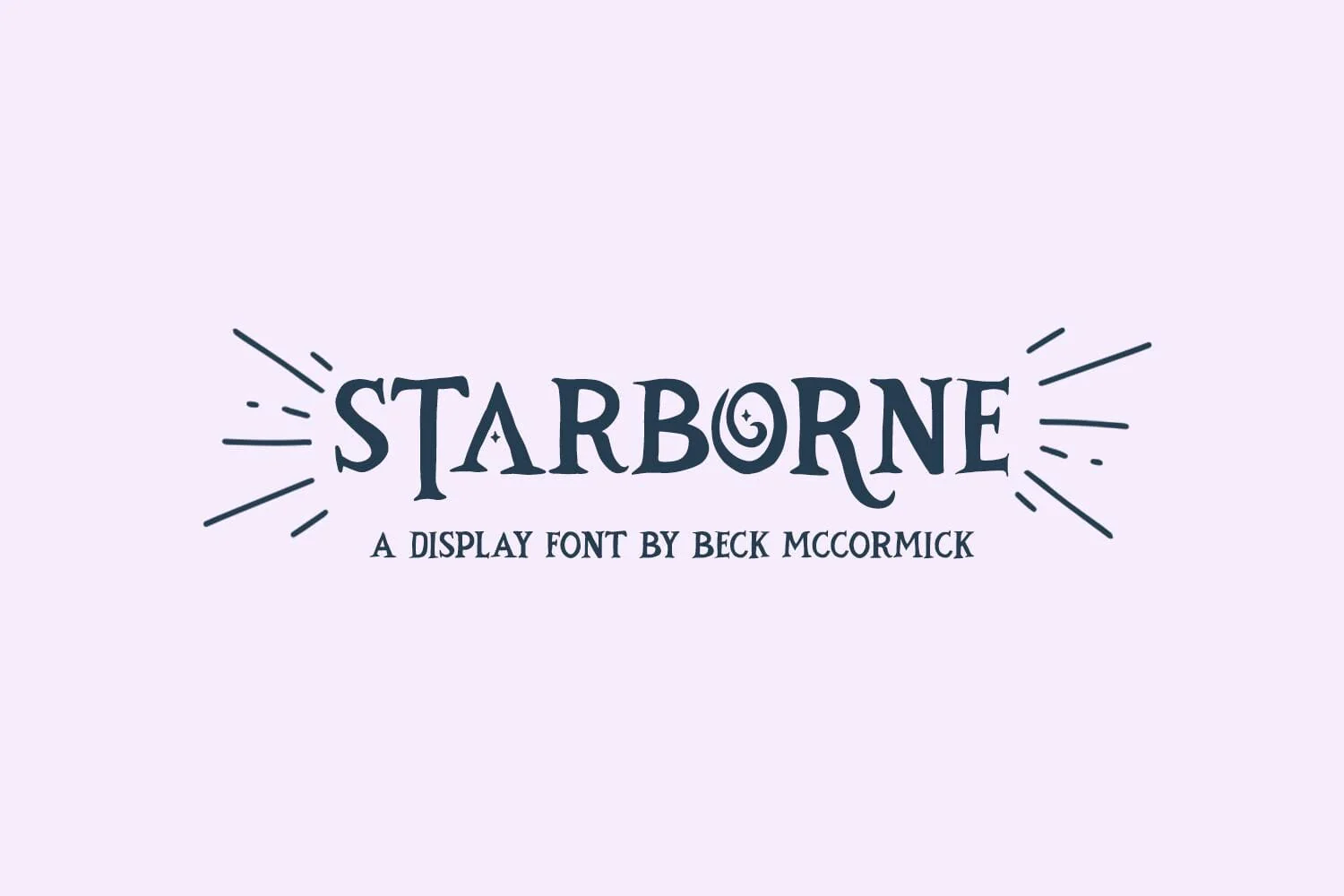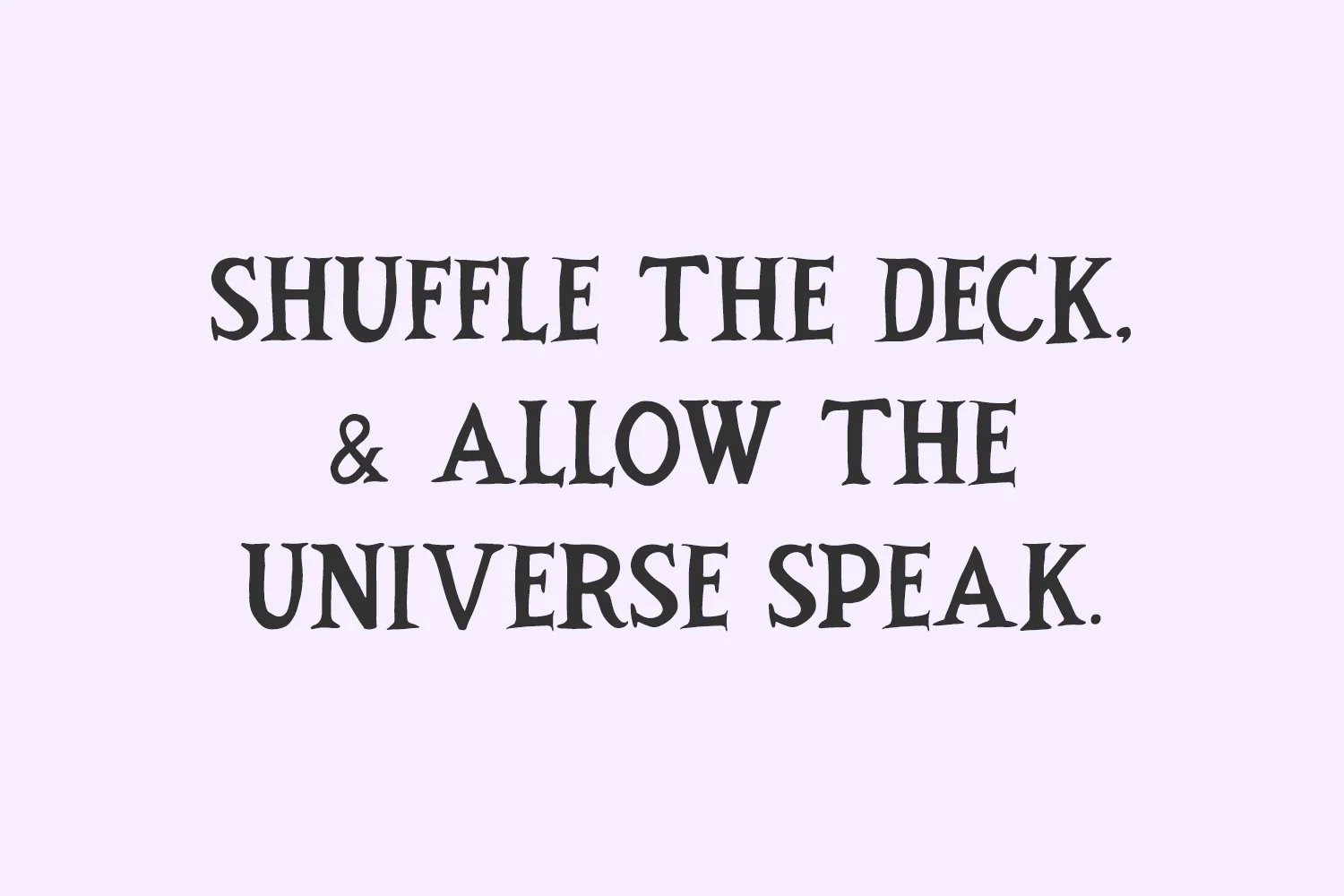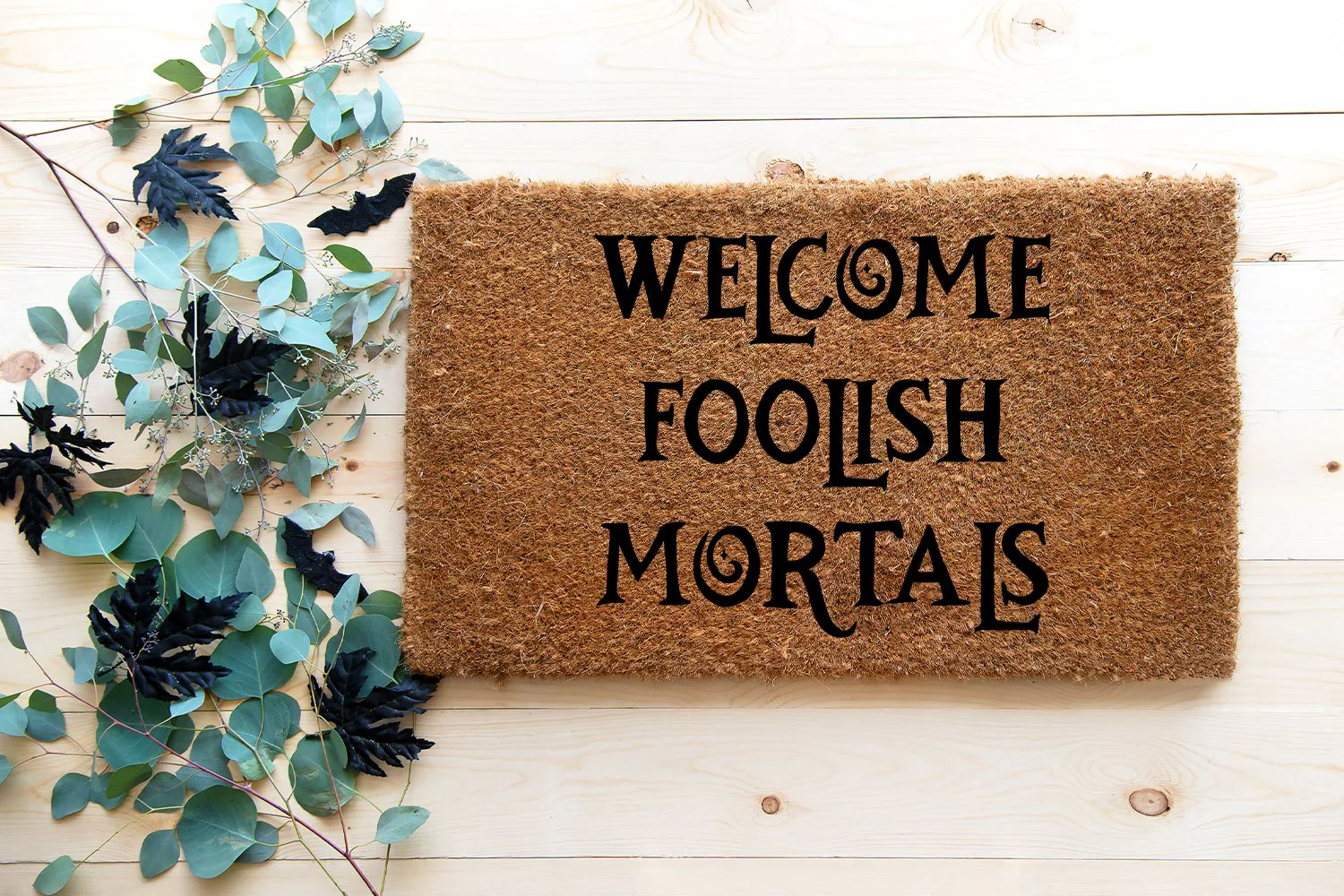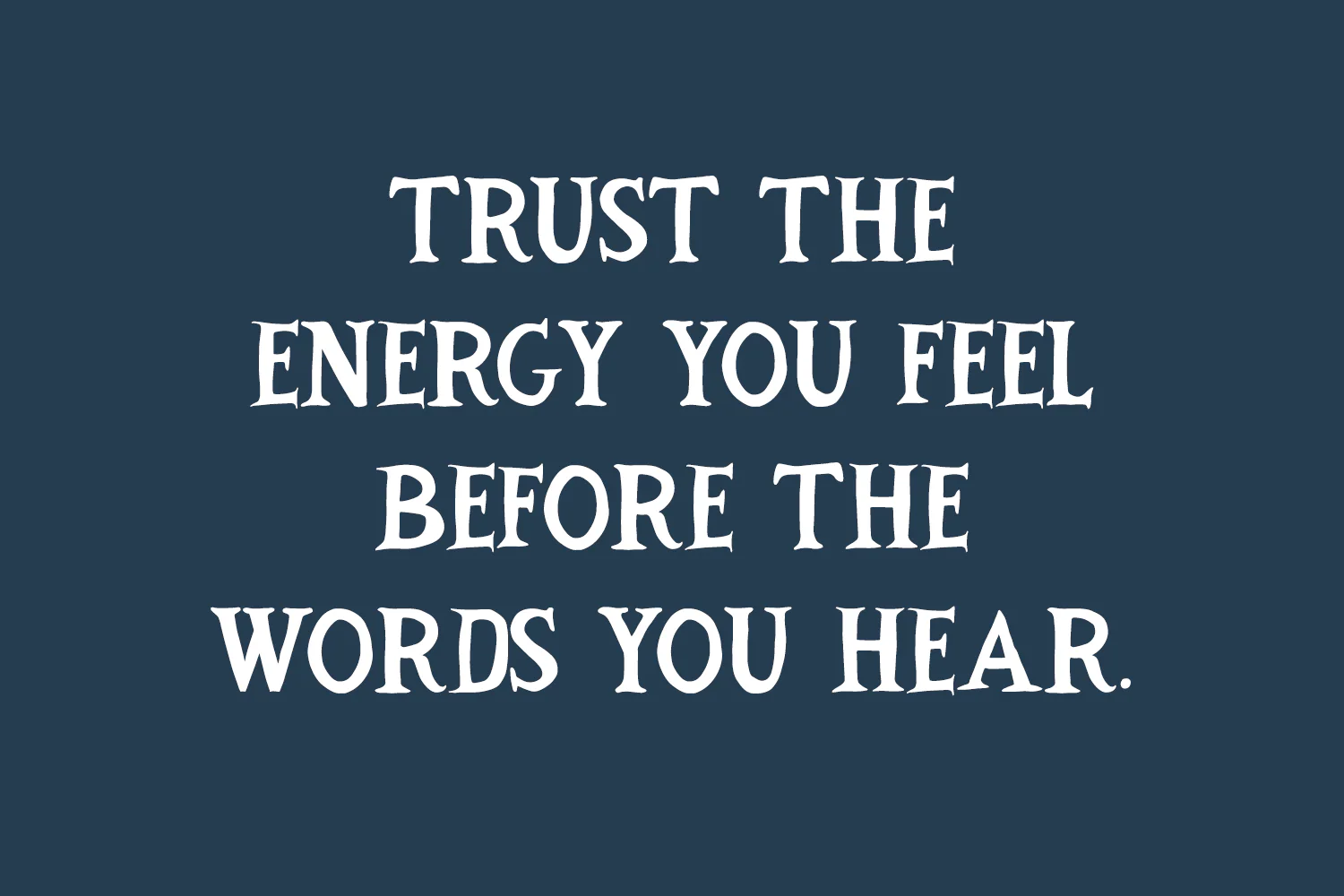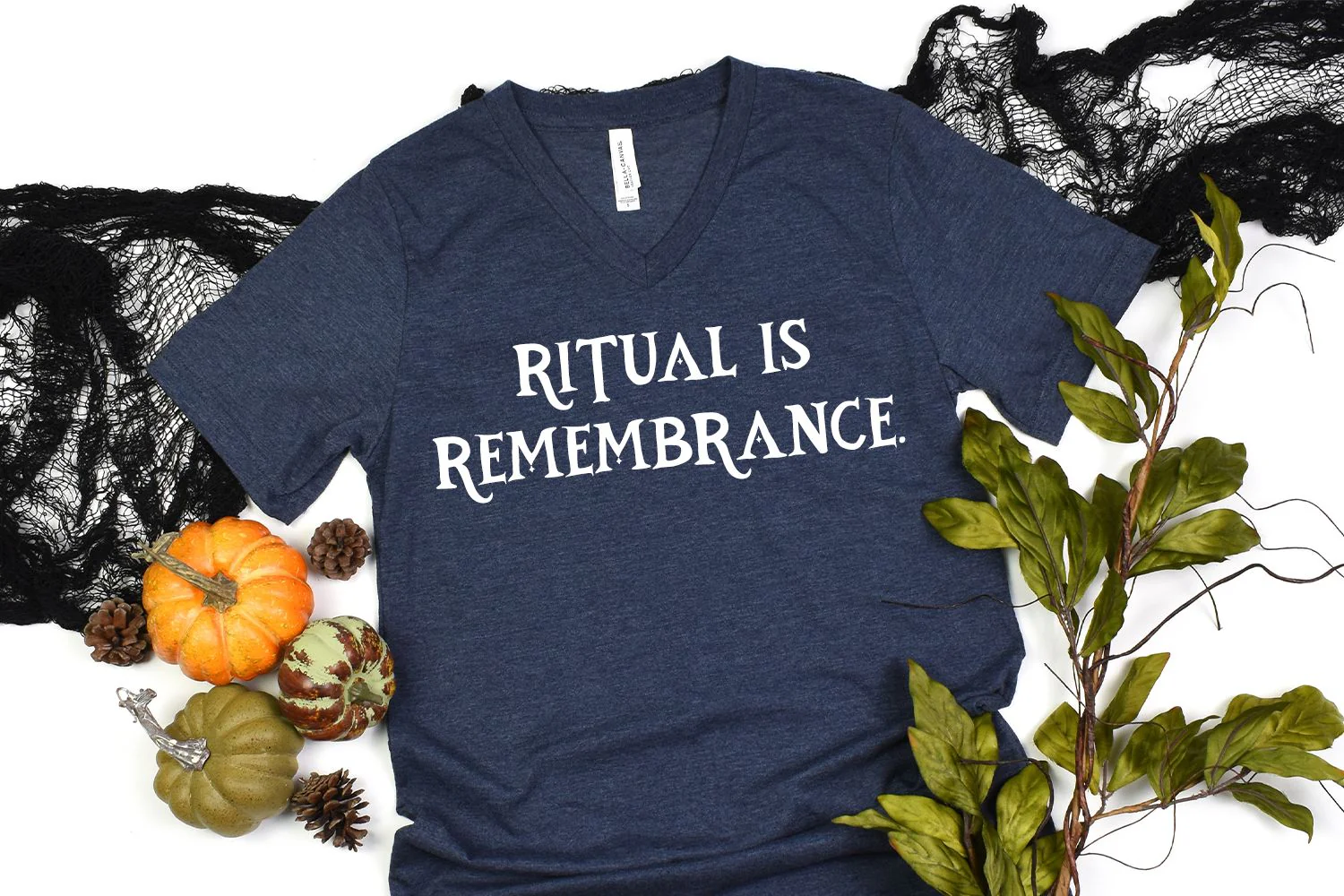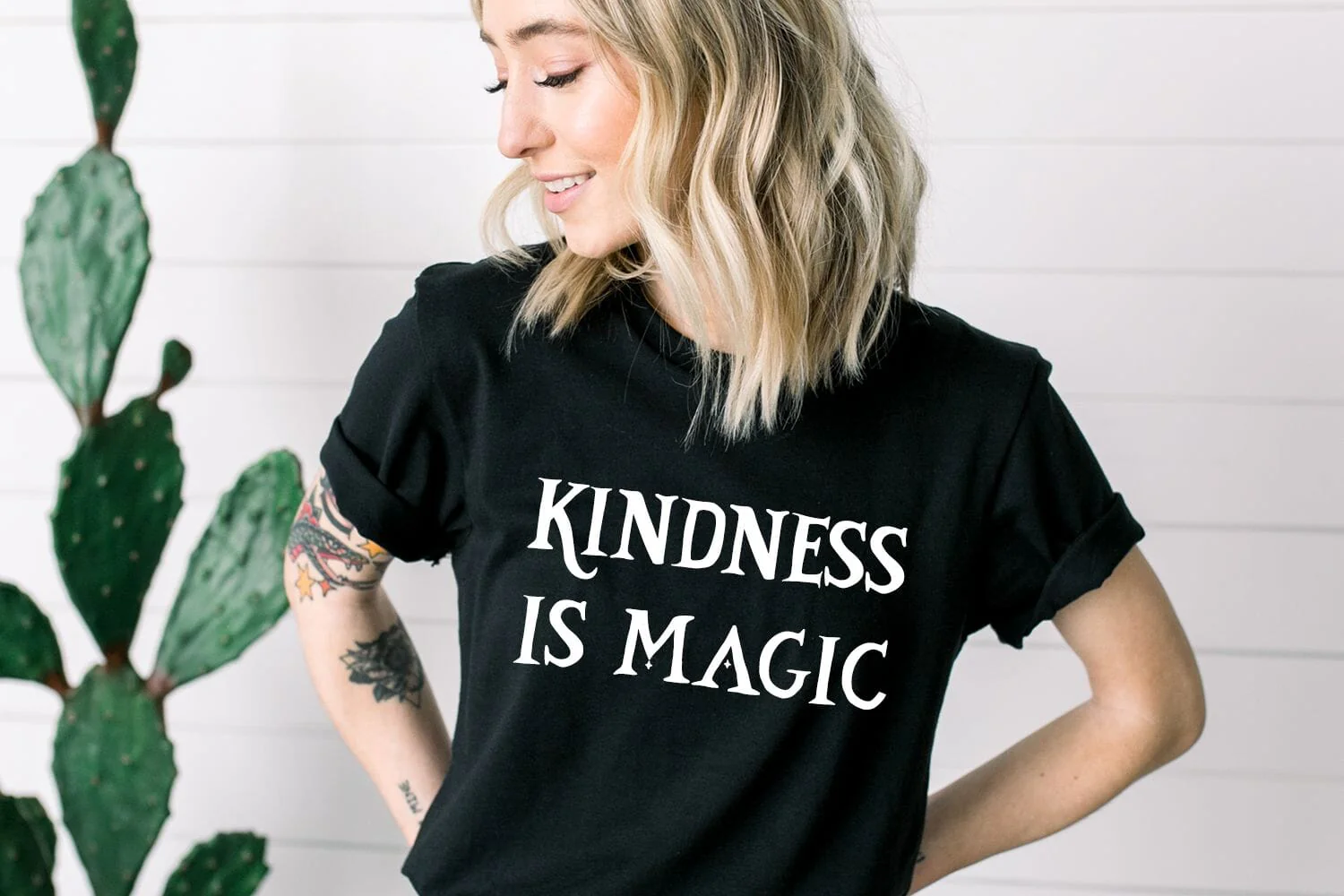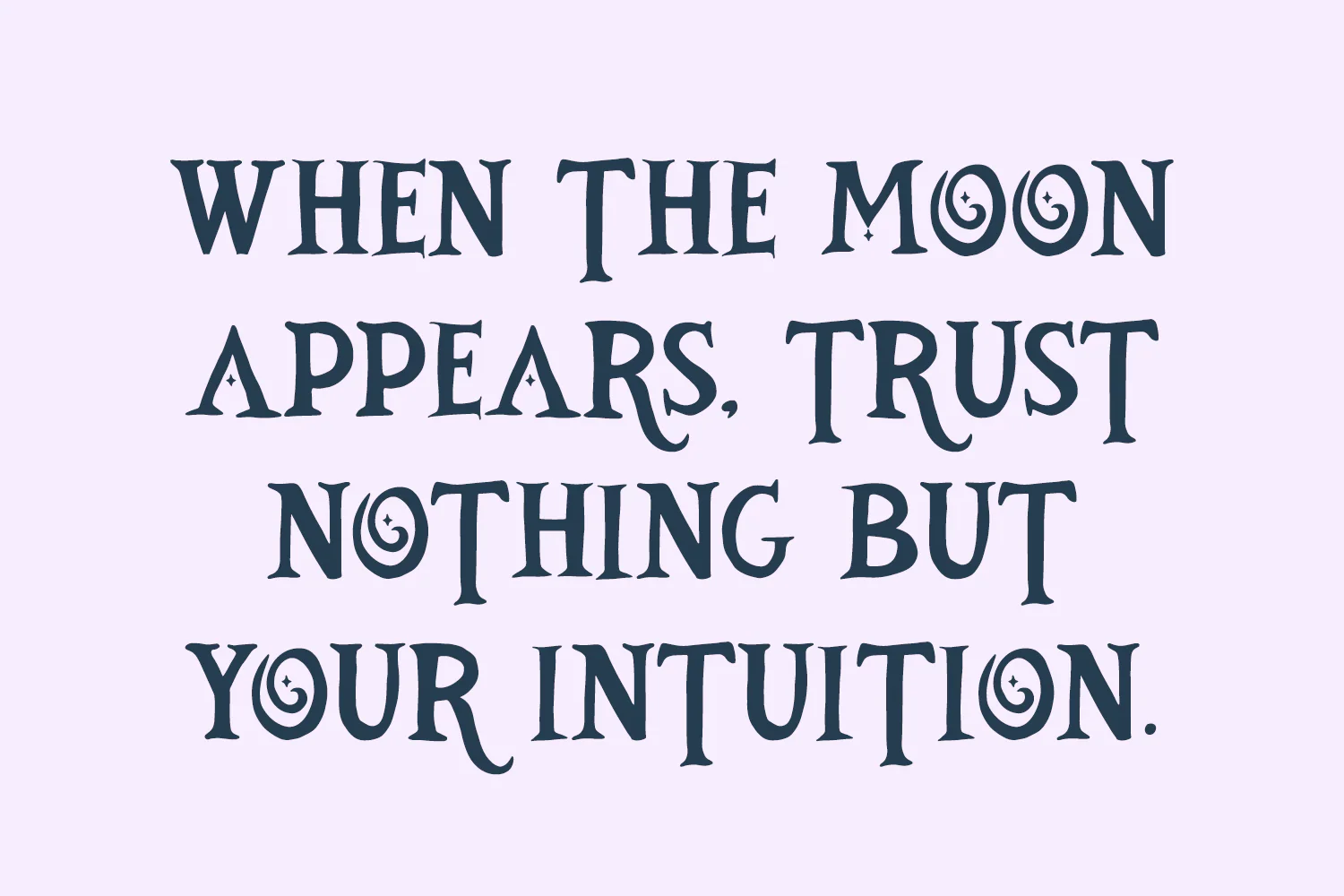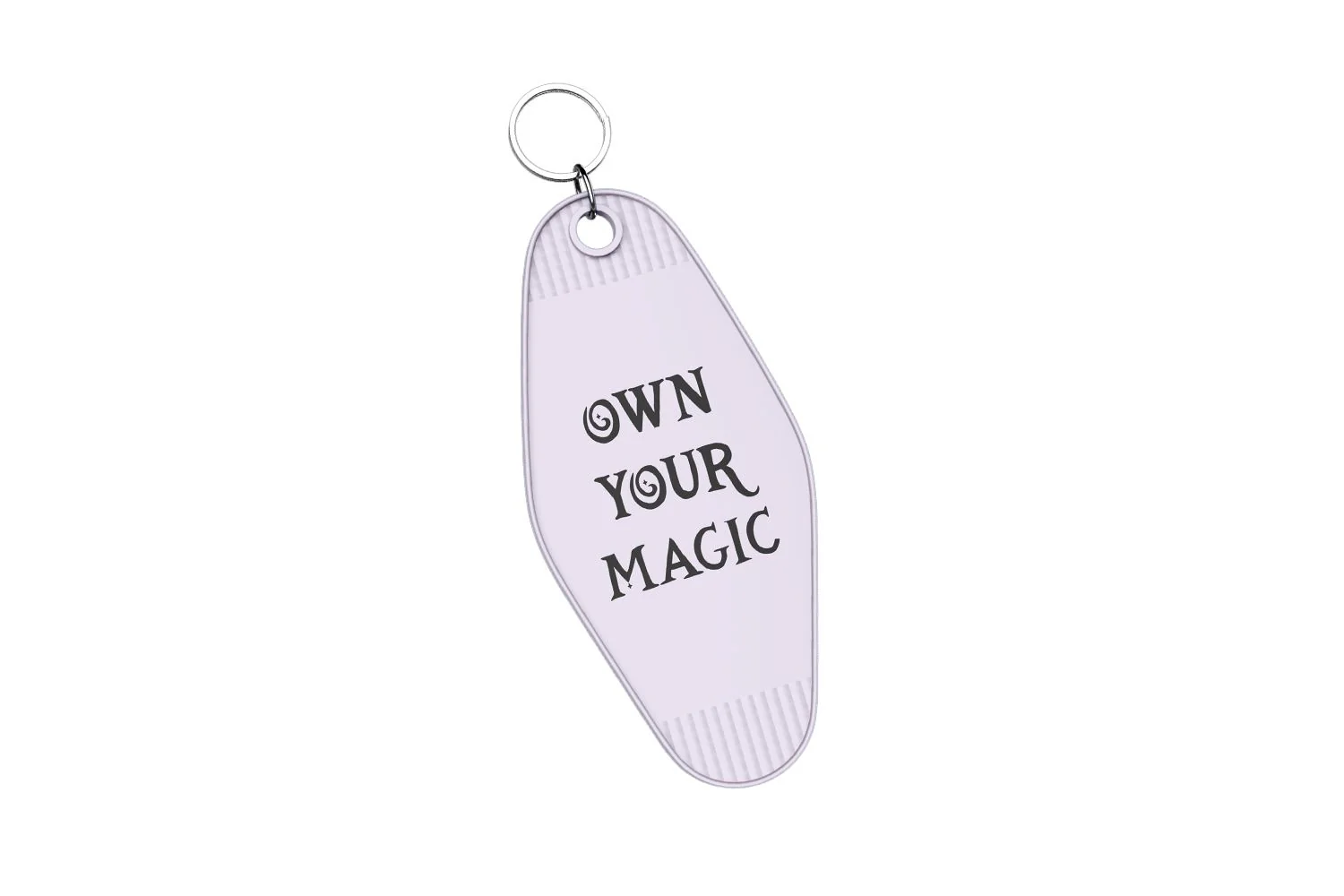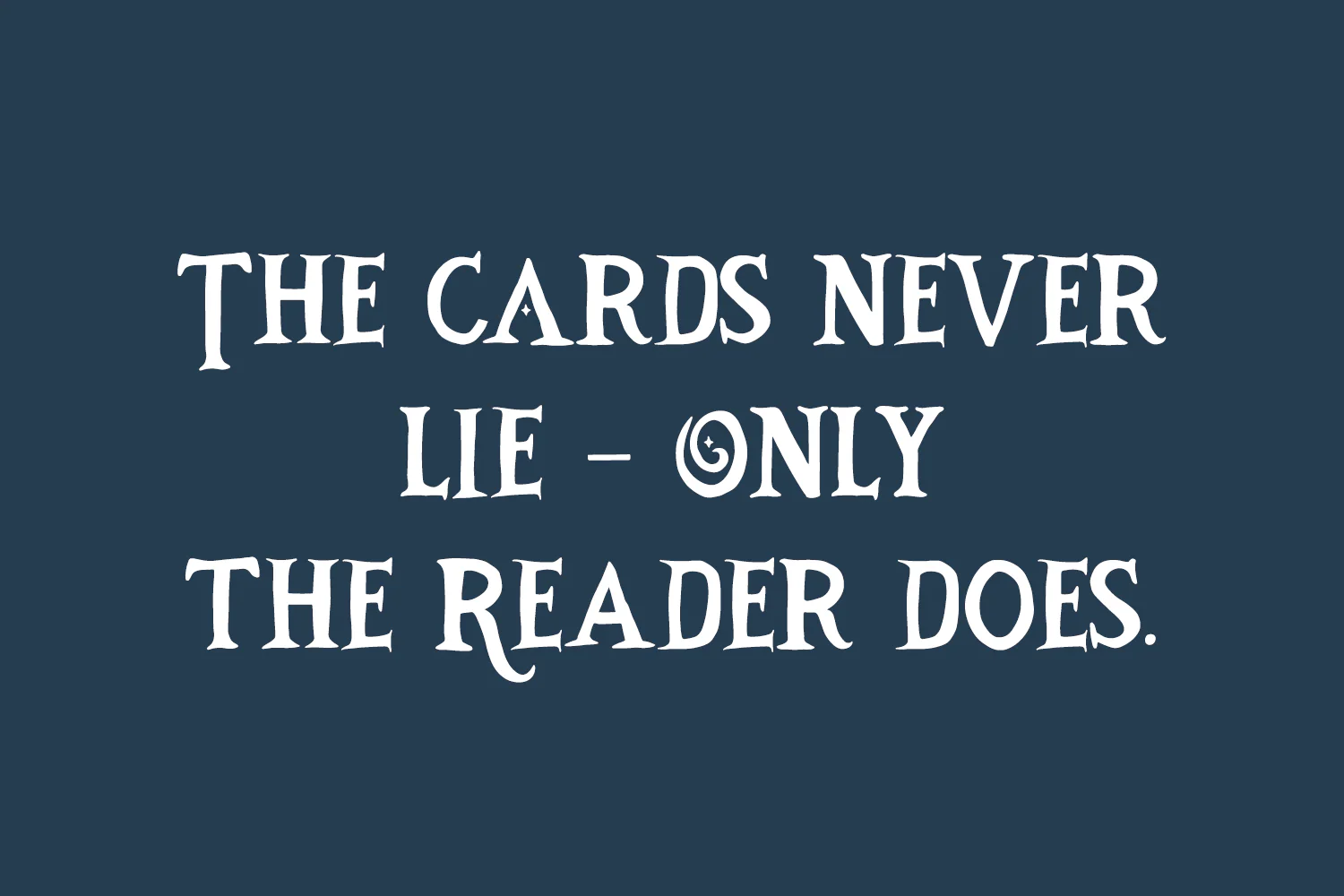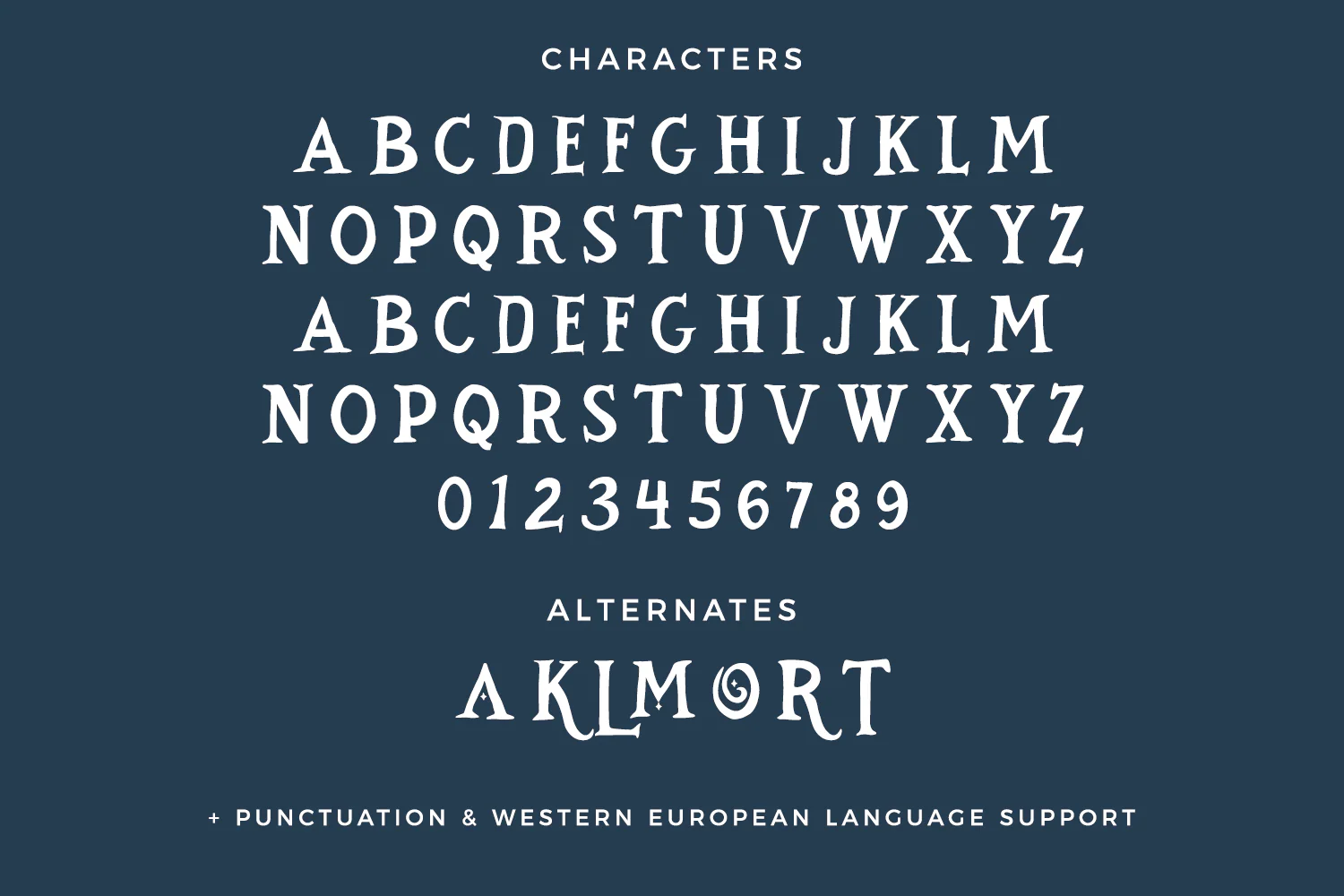
Starborne Serif - A Tarot Font
Introducing Starborne, a hand lettered serif font. Starborne is a fantastic fit for your witchy designs. This font is well-suited for Halloween crafting projects with your Cricut or Silhouette machine, and can be used for things like shirts, signs, labels, marketing materials, social media, SVG designs, greeting cards & other print items, and even spooky logos & branding. Starborne would also be a great fit for any whimsical projects that are tarot, magic, witch, or celestial-themed.
Starborne includes:
- full upper + lowercase characters (Starborne is all-caps, so uppercase characters are programmed into lowercase spots for ease of use.)
- 7 alternates with stars - A, K, L, M, O, R, T
- Western European language support - English, French, Spanish, Portuguese (Brazil), Portuguese (Portugal), Italian, German (Germany), German (Austria), Dutch, Danish, Swedish, Norwegian (BokmĂĄl and Nynorsk), Finnish, Icelandic, Irish, Welsh
Introducing Starborne, a hand lettered serif font. Starborne is a fantastic fit for your witchy designs. This font is well-suited for Halloween crafting projects with your Cricut or Silhouette machine, and can be used for things like shirts, signs, labels, marketing materials, social media, SVG designs, greeting cards & other print items, and even spooky logos & branding. Starborne would also be a great fit for any whimsical projects that are tarot, magic, witch, or celestial-themed.
Starborne includes:
- full upper + lowercase characters (Starborne is all-caps, so uppercase characters are programmed into lowercase spots for ease of use.)
- 7 alternates with stars - A, K, L, M, O, R, T
- Western European language support - English, French, Spanish, Portuguese (Brazil), Portuguese (Portugal), Italian, German (Germany), German (Austria), Dutch, Danish, Swedish, Norwegian (BokmĂĄl and Nynorsk), Finnish, Icelandic, Irish, Welsh